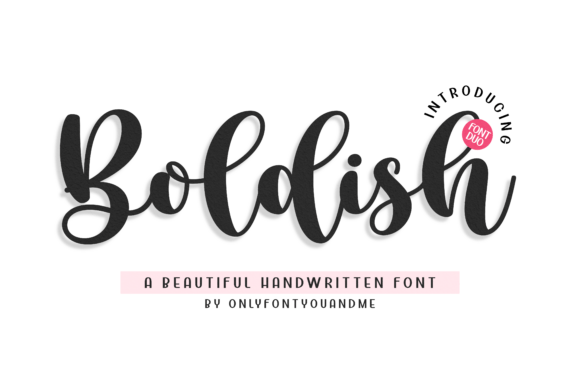
The Boldish Font: A Perfect Blend of Elegance and Modernity
What Makes Boldish Font Special?
Boldish is a unique blend of a beautiful, handwritten script and bold, clean letters. The script is smooth and flowing, with loops and curves that give it an elegant and friendly look. This makes it perfect for romantic or fun designs like invitations, logos, and social media posts. The bold letters are simple and strong, adding balance to the soft script. This combination makes the font ideal for projects that need both a personal and modern touch.
What I Love About Boldish Font
• ✨ Elegant and modern combination: The script and bold letters work together seamlessly to create a unique look.
• ✅ Versatile: Suitable for various design projects, from invitations to product labels and social media posts.
• 🌈 Beautiful swashes and ligatures: Add a touch of elegance to your designs with the font’s built-in swashes and ligatures.
While the Boldish font is amazing, there are a few things to keep in mind:
• ⚠️ Limited use in body text: Due to its elegant and cursive nature, the font might not be the best choice for long body text.
• 🤔 May require adjustments for certain languages: Some languages may require additional kerning or adjustments to work well with the font.
The Story Behind Boldish Font
The Boldish font was created by a talented designer who wanted to combine the elegance of a handwritten script with the strength of bold letters. The designer aimed to create a font that would be perfect for romantic and modern designs, and after months of tweaking and refining, the Boldish font was born.
Font Name Boldish Font
Author onlyfontyouandme
Q: Is Boldish font suitable for body text?
A: While the Boldish font is beautiful, it’s not ideal for long body text due to its elegant and cursive nature. However, it can be used for short paragraphs or headings.
Q: Does Boldish font come with swashes and ligatures?
A: Yes, the Boldish font includes beautiful swashes and ligatures that can add a touch of elegance to your designs.